Great graphic design is powered by great font selection. But picking great fonts is a challenge for most people. Luckily, Canva has made adding great fonts to your designs much easier. In this tutorial, our team of design experts will cover the best gaming fonts in Canva.
What Are Gaming Fonts in Canva?
Gaming fonts are used in video games and other gaming-related media to convey a sense of excitement, energy, and action. Some of the characteristics of gaming fonts are:
- Bold and dynamic: Gaming fonts are often bold and dynamic, with thick lines and sharp angles that create a sense of movement and energy.
- Futuristic or sci-fi inspired: Many gaming fonts have a futuristic or sci-fi inspired design, with letters that resemble alien or futuristic technology. This helps to create a sense of immersion in the gameโs universe.
- Distinctive design: Gaming fonts often have a distinctive design that sets them apart from other fonts. This can help to create a strong brand identity for the game or the gaming company.
- Strong contrast: Gaming fonts often have a high contrast between the thick and thin strokes of the letters. This helps to make the text stand out and adds visual interest.
- Display font: Gaming fonts are often used as display fonts, meaning they are used for headlines, logos, and other prominent text. This allows them to create a strong visual impact and grab the viewerโs attention.
- Customizable: Many gaming fonts are customizable, with different variations and styles that can be used to create different effects. This allows designers to create a unique look and feel for their game.
- Legible: Despite their bold and dynamic design, gaming fonts are still designed to be legible and easy to read. This ensures that important information, such as scores or instructions, can be easily understood by the player.
Best Gaming Fonts in Canva
1. Nine by Five
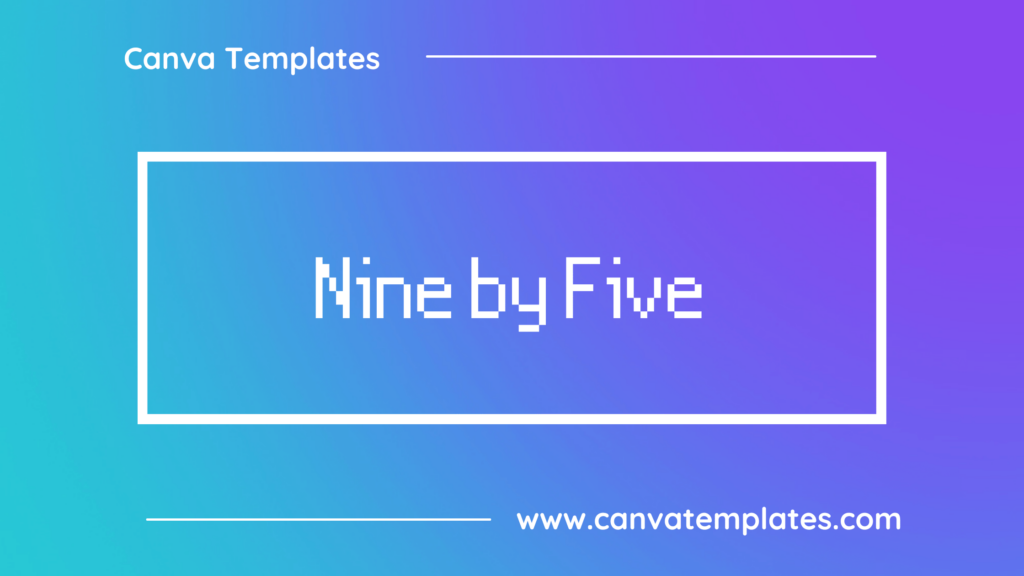
Nine by Five is a digital typeface that was designed by Jim Lyles in 1991. It is a bitmap font, which means that it is created using a grid of pixels, rather than vector shapes. The name โNine by Fiveโ refers to the dimensions of the font, which is 9 pixels wide and 5 pixels tall.
2. Retropix
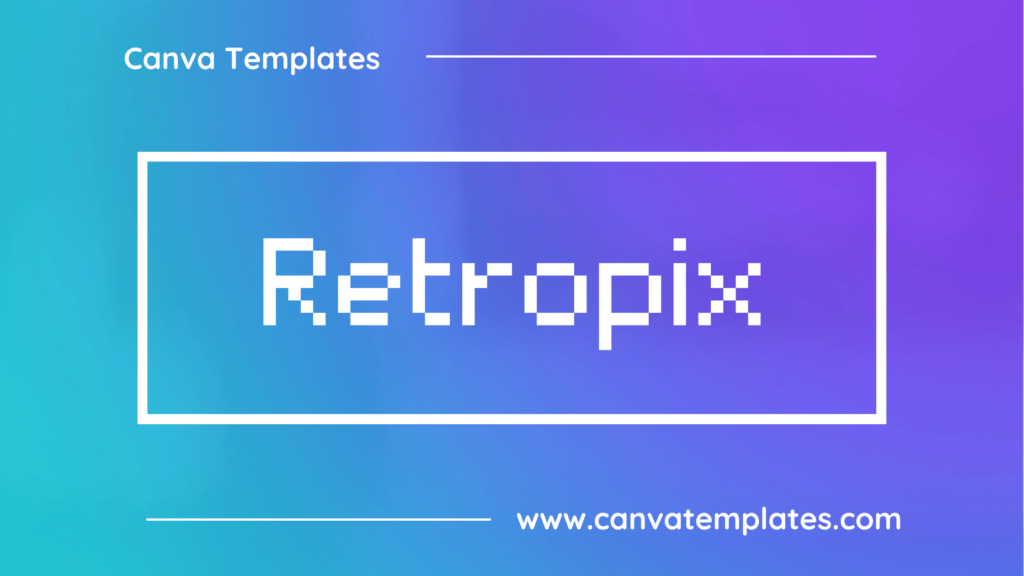
Retropix is a bitmap-style font created by the designer Goma Shin. It is inspired by old-school pixel art and video games and features a distinctive blocky, pixelated appearance. Retropix is often used in designs that aim to evoke a sense of nostalgia or retro aesthetic.
3. Game Station Condensed
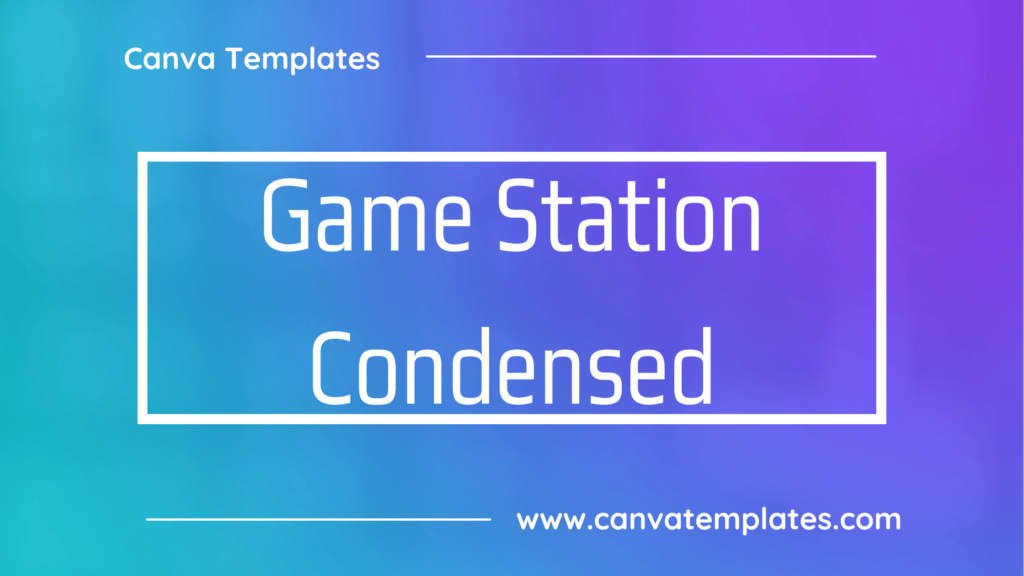
Game Station Condensed is a display font that was designed to emulate the look of old video game console lettering. It has a condensed, bold style that is similar to the fonts used on game cartridges, packaging, and marketing materials from the 1980s and 1990s. The font features straight edges and sharp corners, which give it a futuristic, technological look that was popular during the era. It can be a great choice for designs or projects that are inspired by the aesthetics of classic video games.
4. Arcade Gamer
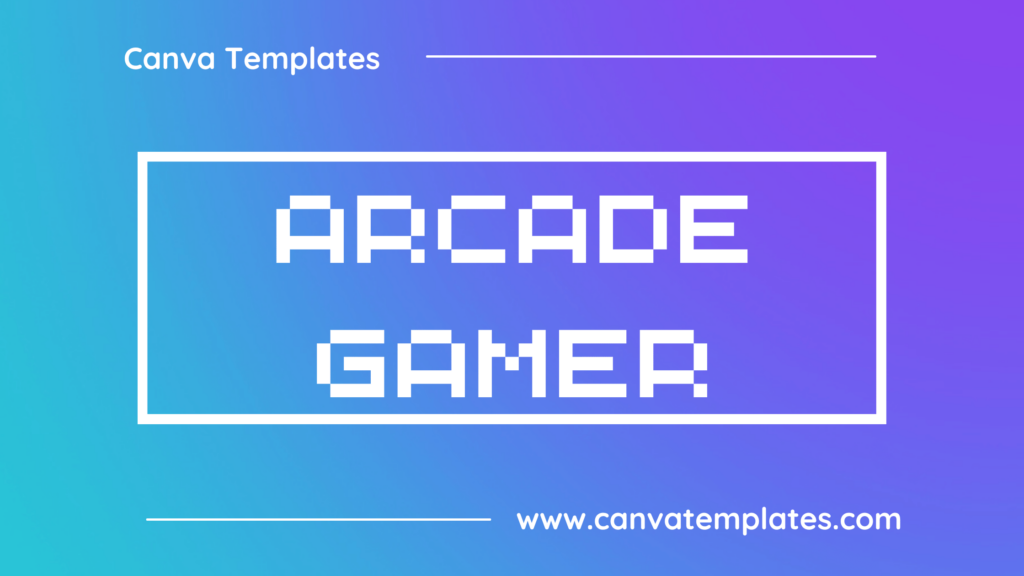
Arcade Gamer is a pixelated, bitmap font that is reminiscent of the type of fonts used in old arcade games. It has a retro, 8-bit style that can add a nostalgic feel to designs or projects that reference classic video games. The font typically features blocky characters with a limited number of pixels, giving it a distinct and recognizable look.
5. JetBrains Mono
JetBrains Mono is a monospaced font developed by JetBrains, the company behind popular development tools like IntelliJ IDEA and PyCharm. It has a clean, modern look and includes a number of features designed specifically for coding, such as ligatures and customizable character widths.
6. Anca Coder
Anca Coder is a monospaced font that was specifically designed for use in software development. It has a clean, modern look and is designed to be easy to read at small sizes.
7. Aliens and Cow
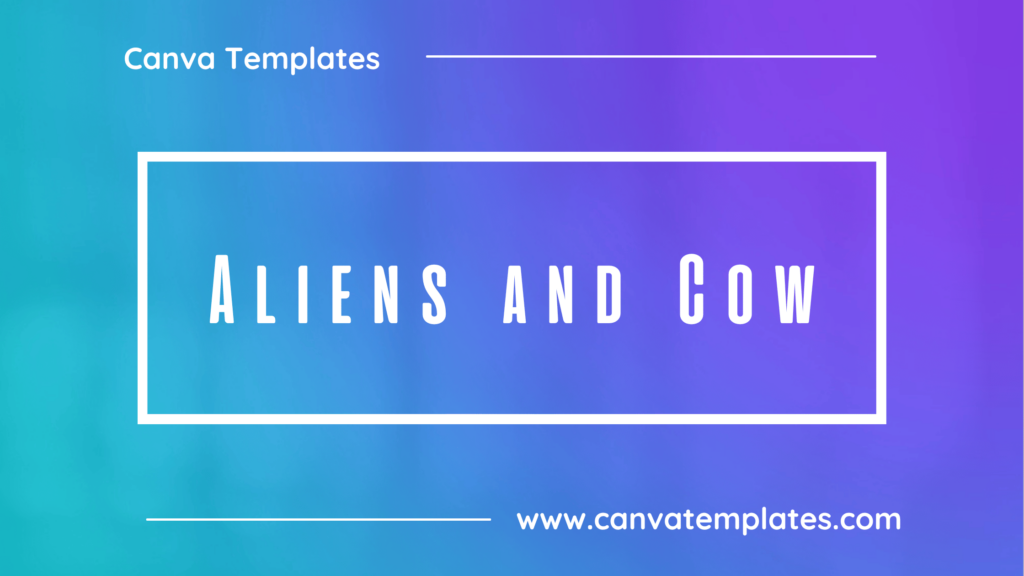
Aliens and Cow is a monospaced font with a fun, whimsical look. It includes a number of unusual characters and is suitable for use in creative and playful contexts.
8. Roboto Condensed
Roboto Condensed is a condensed version of the Roboto font family, developed by Google. It has a clean, modern look and is designed to be easy to read on both screen and print.
9. Cousine
Cousine is a monospaced font developed by Ascender Corporation that is similar in style to the popular Verdana font. It has a clean, modern look and is designed to be easy to read at small sizes.
10. Space Mono
Space Mono is a monospaced font developed by Colophon Foundry that is designed to be easy to read on both screen and print. It has a retro-futuristic look and includes a wide range of characters, including Cyrillic and Greek.
Conclusion